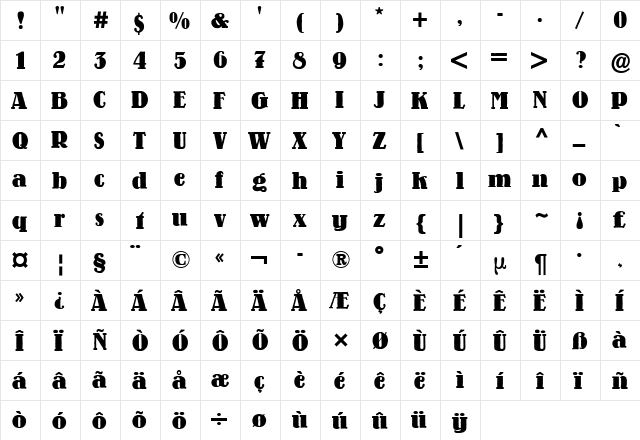
Lo-Type BQ Medium
Design Context for Lo-Type BQ Typeface
Lo-Type BQ is a composed and adaptable typeface that performs quietly and consistently across a wide range of design contexts.